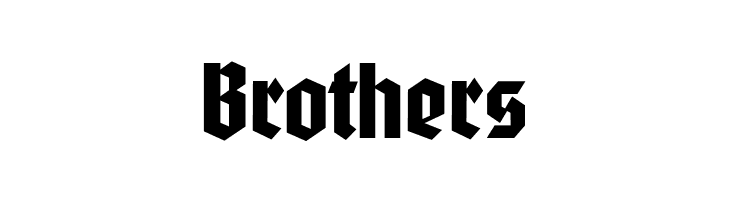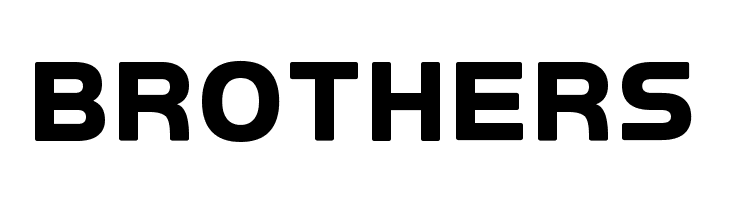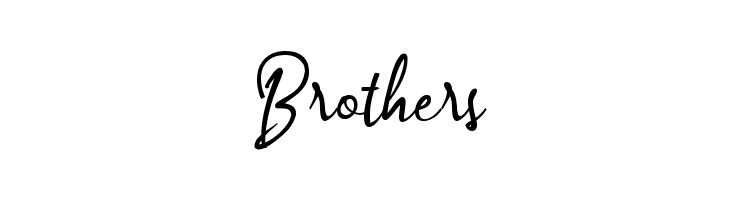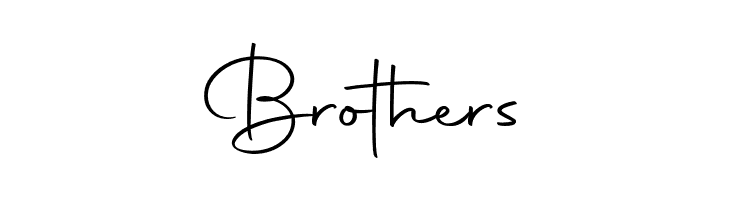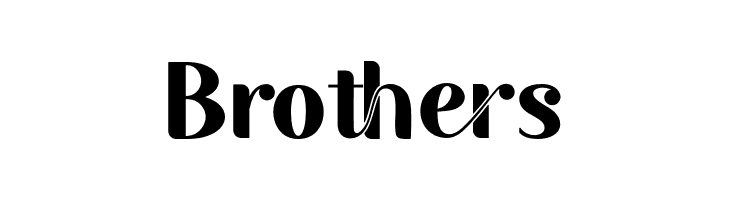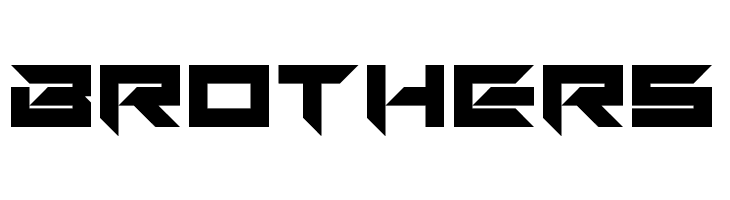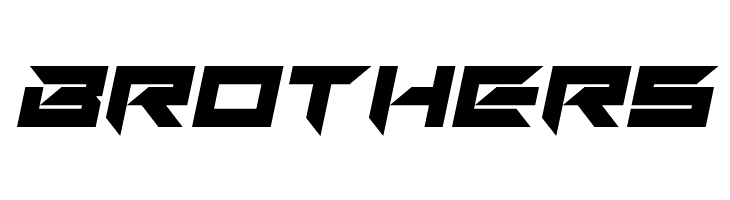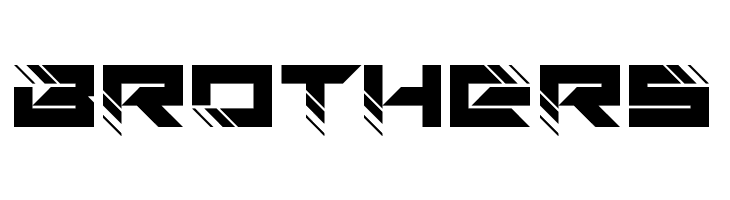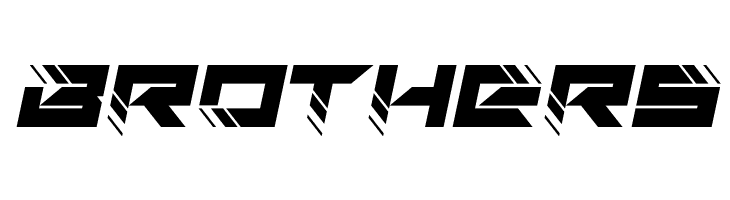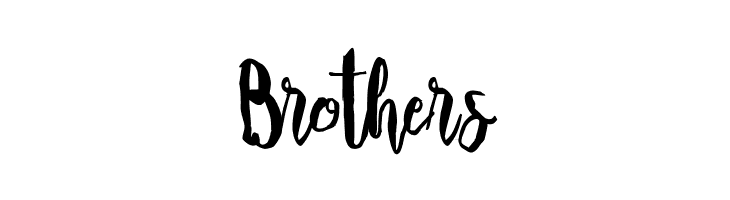
A flowing, cursive script font with elegant, connected characters.
A flowing, cursive script font with elegant, interconnected letters.
A playful, casual handwritten font with fluid strokes and a personal touch.
A bold, cursive font with a playful and dynamic style.
An elegant script font with flowing, high-contrast strokes and decorative flourishes.
A graceful script font with flowing, interconnected letters and ornate flourishes.
A flowing, cursive font with elegant, interconnected strokes and a modern calligraphic style.
An elegant, cursive font with fluid, graceful lines.
A playful, handwritten font with smooth, slightly slanted strokes.
A cursive, handwritten font with a fluid, signature-like style.
An elegant, fluid script font with interconnected letters and a natural handwriting style.
A dynamic and fluid script font with elegant, flowing letterforms.
An elegant, cursive font with flowing, artistic strokes.
A sophisticated script font with a handwritten signature style.
A lively and dynamic script font with fluid, interconnected strokes.
A cursive, handwritten font with elegant, flowing strokes and medium contrast.
A dynamic, fluid handwritten script with elegant, flowing characters.
A decorative cursive font with elegant loops and swirls.
A bold, cursive script font with a lively and dynamic style.
A bold, brush-style font with expressive, hand-painted strokes.
A bold, brush-stroke font with a dynamic and textured appearance.
A bold, geometric font with a futuristic and modern design.
A bold, artistic font with a futuristic and geometric style.
A bold, angular, and italicized font with a futuristic and dynamic style.
A bold, futuristic font with angular, techno-inspired design.
A bold, futuristic font with angular shapes and a dynamic slant.
A bold, Gothic-inspired font with sharp angles and strong vertical lines.
A fluid and elegant handwritten script with a playful slant.
A playful and whimsical script font with fluid, flowing letterforms.
A bold, rounded, and geometric font with a modern appeal.
A bold, geometric font with rounded edges and uniform width.
A bold, dynamic script font with flowing, handwritten strokes.
A bold, expressive handwritten font with dynamic, brush-like strokes.